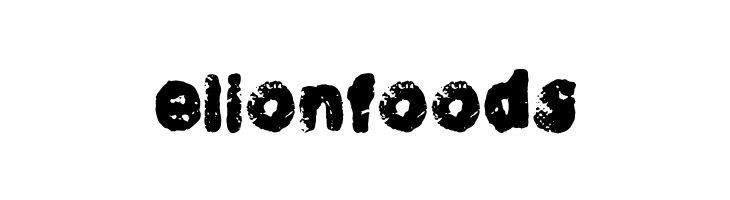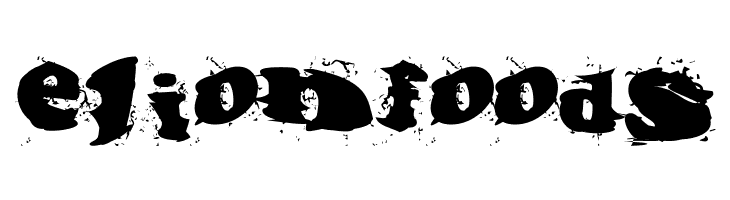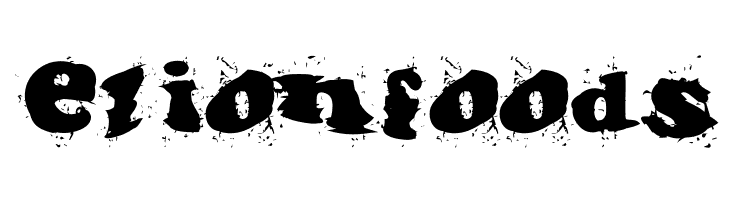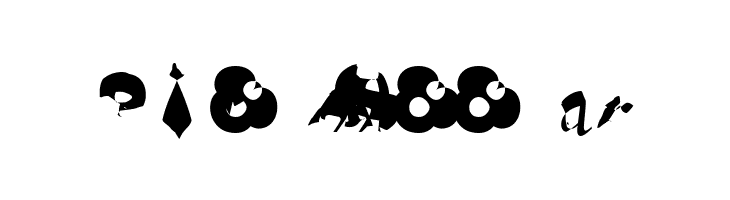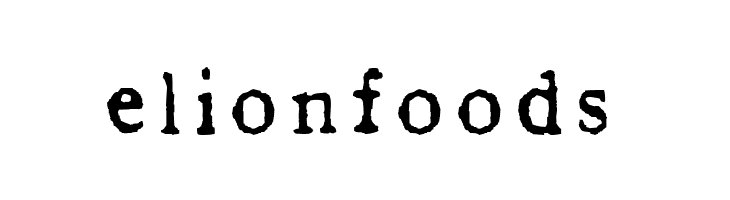
A vintage serif font with a distressed, hand-printed appearance.
A bold, distressed font with a grunge, graffiti-inspired style.
A bold, distressed font with a grunge-like, weathered appearance.
A bold, abstract font with fragmented characters and graphic elements.
A rugged, hand-drawn font with a vintage, weathered appearance.